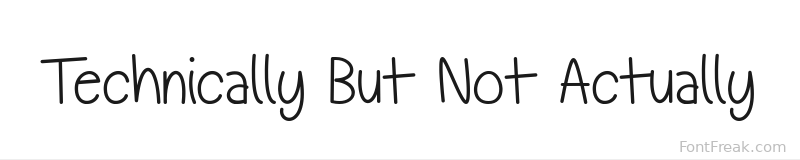
TechnicallyButNotActually
Technically But Not Actually
The TechnicallyButNotActually font by Misti Hammers is a delightful display typeface that effortlessly balances playfulness with a touch of sophistication. This font falls within the handwritten style category, featuring a unique blend of casual and refined elements. With its irregular stroke weight and charmingly organic forms, it captures a sense of spontaneity while maintaining legibility, making it an excellent choice for various design applications.
Visually, TechnicallyButNotActually showcases a moderate contrast in its letters, with some characters exhibiting thicker strokes that create visual interest. The letter spacing is thoughtfully designed to ensure readability, while the whimsical curves add a decorative touch that sets it apart from more conventional typefaces. The overall aesthetic is inviting and friendly, perfect for projects that aim to convey warmth and creativity.
This font is particularly well-suited for wedding invitations, where its unique character can help establish a romantic atmosphere. It works beautifully on restaurant menus, adding a personal touch to the dining experience. Additionally, the TechnicallyButNotActually font can enhance branding materials for artisanal products or small businesses looking to showcase a creative identity. Graphic designers and content creators will find it invaluable for social media graphics, where a distinctive font can capture attention quickly.
In conclusion, the TechnicallyButNotActually font stands out due to its charmingly irregular design that offers both personality and versatility. Its freeware license makes it accessible for a wide range of users, from professional designers to hobbyists, who wish to incorporate a touch of whimsy into their work. For those interested, the TechnicallyButNotActually font free download provides an opportunity to explore its unique style in various creative projects.